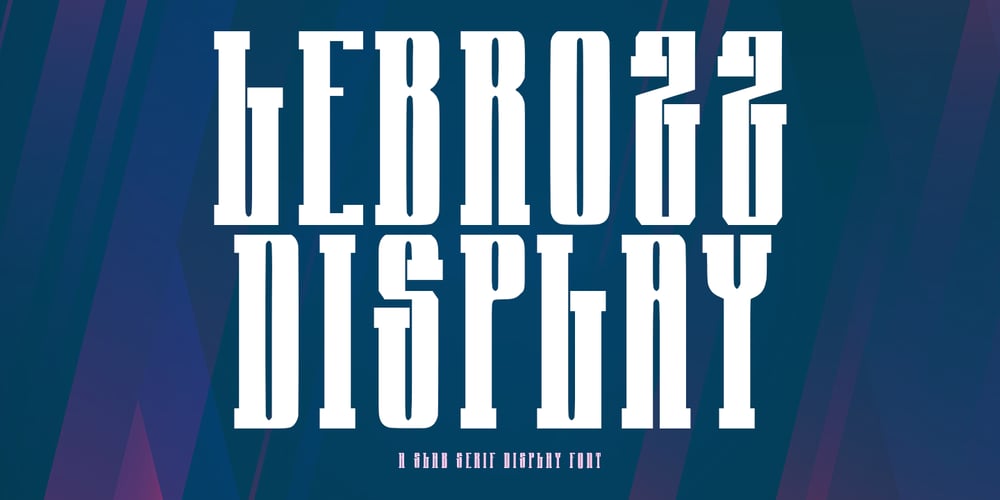
MC Lebrozz Font Family was designed by Gilang Maulana and published by Maulana Creative. MC Lebrozz contains 1 styles and family package options. Lebrozz is a Slab Serif Bold Display Font. fun character with a bit sharp stroke. To give you an extra creative work. Lebrozz font support multilingual more than 100+ language. This font is good for Headline, logo design, Social media, Movie Titles, Books Titles, a short text even a long text letter and good for your secondary text font with sans or serif. Make a stunning work with Lebrozz font.Cheers,Maulana Creative.